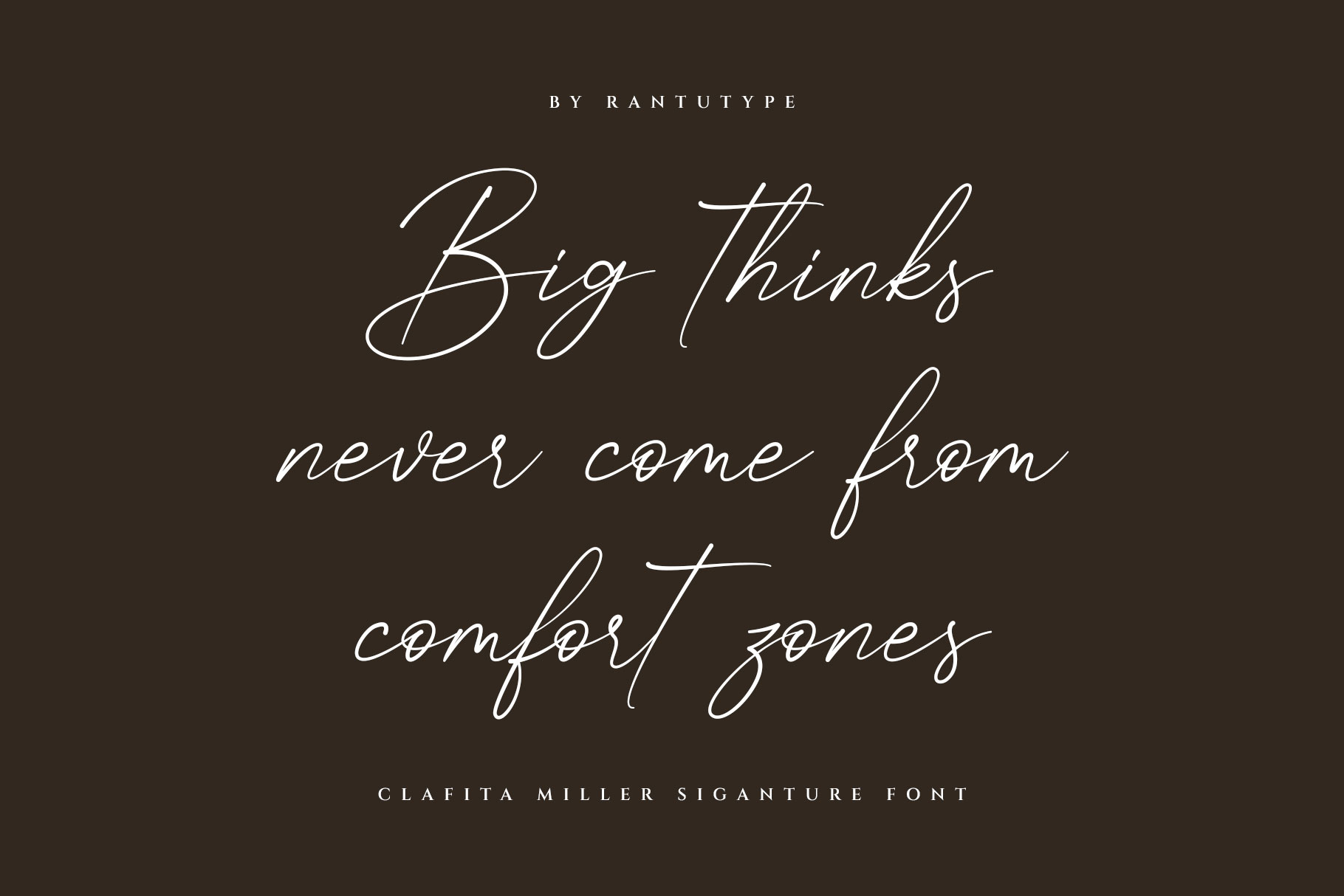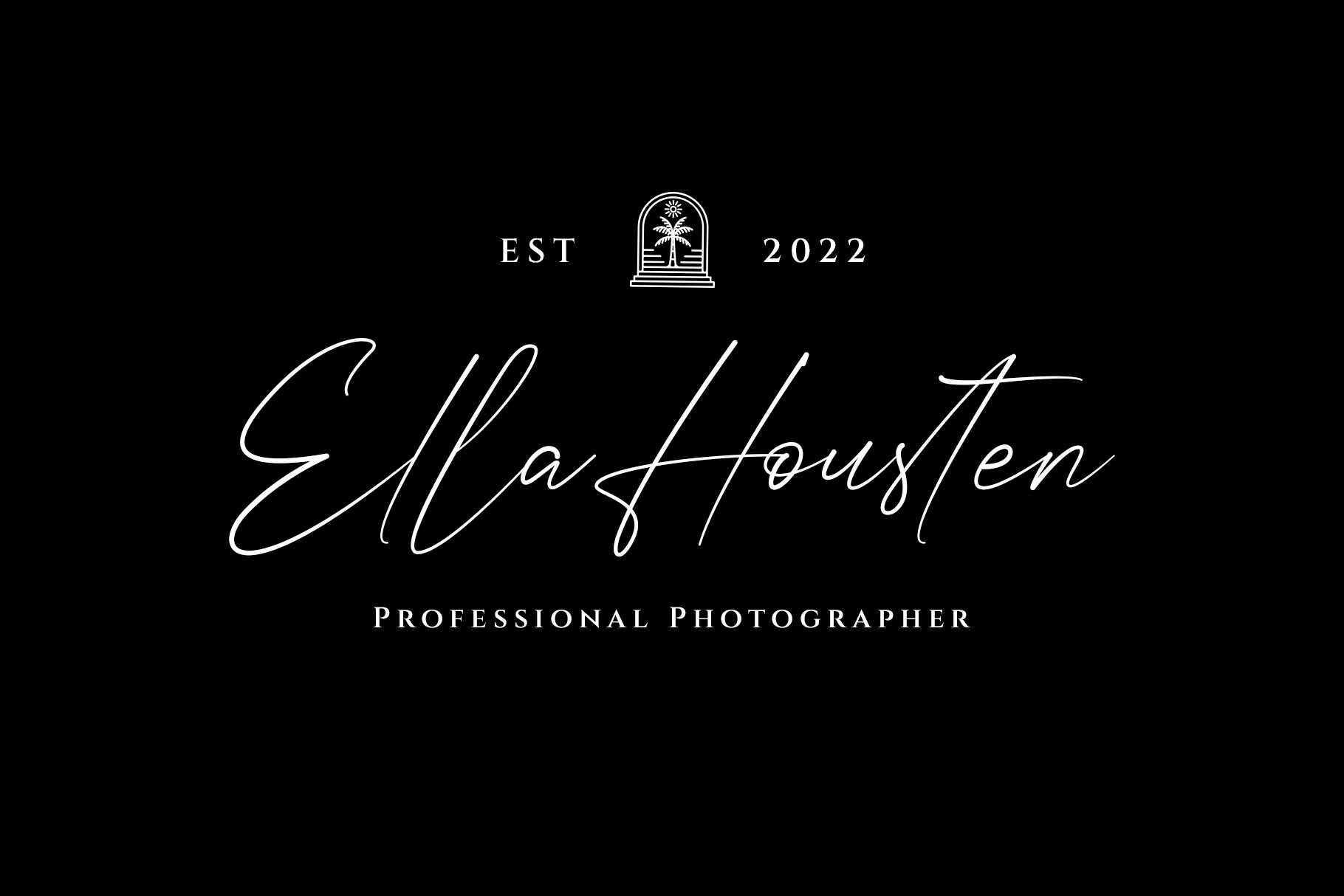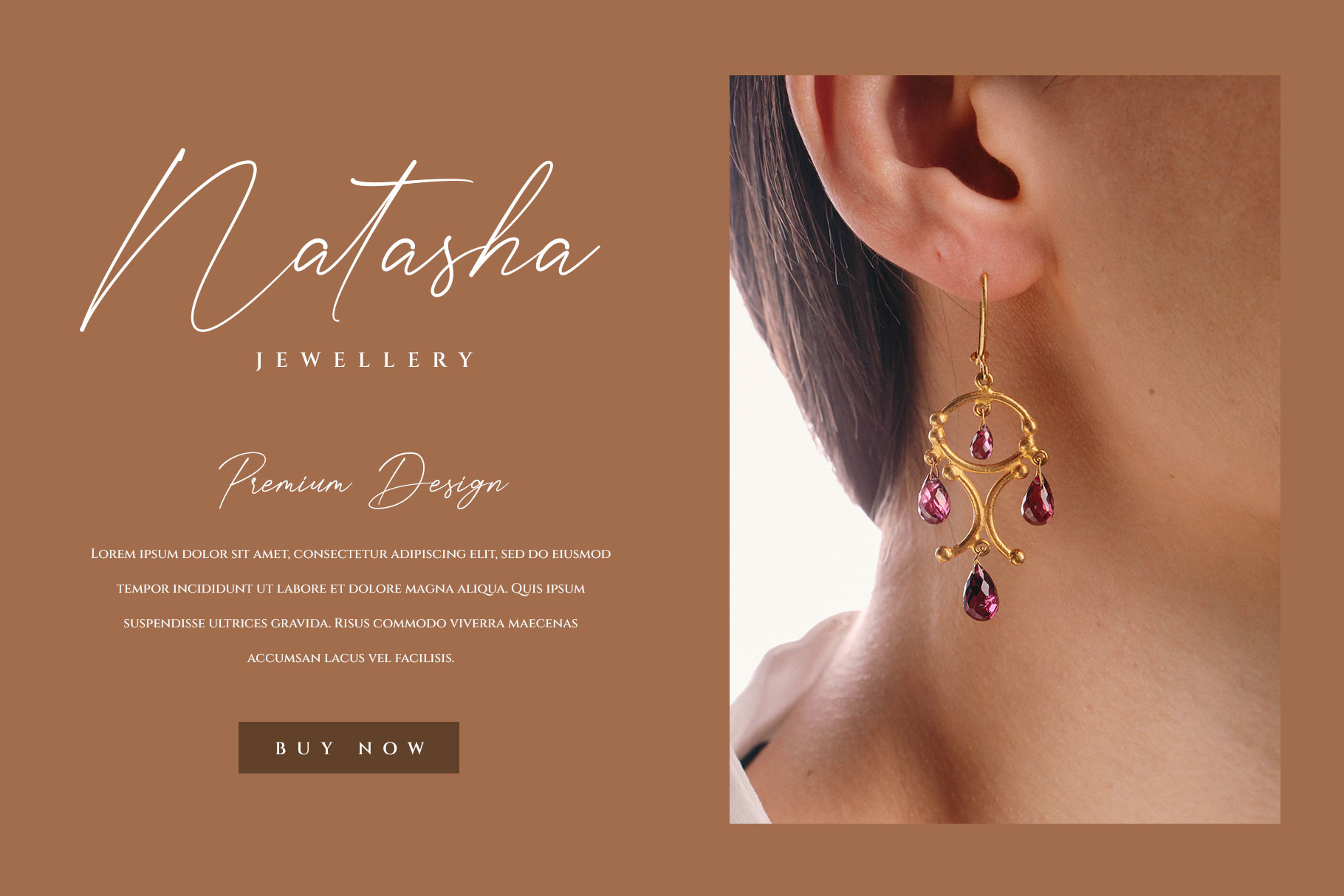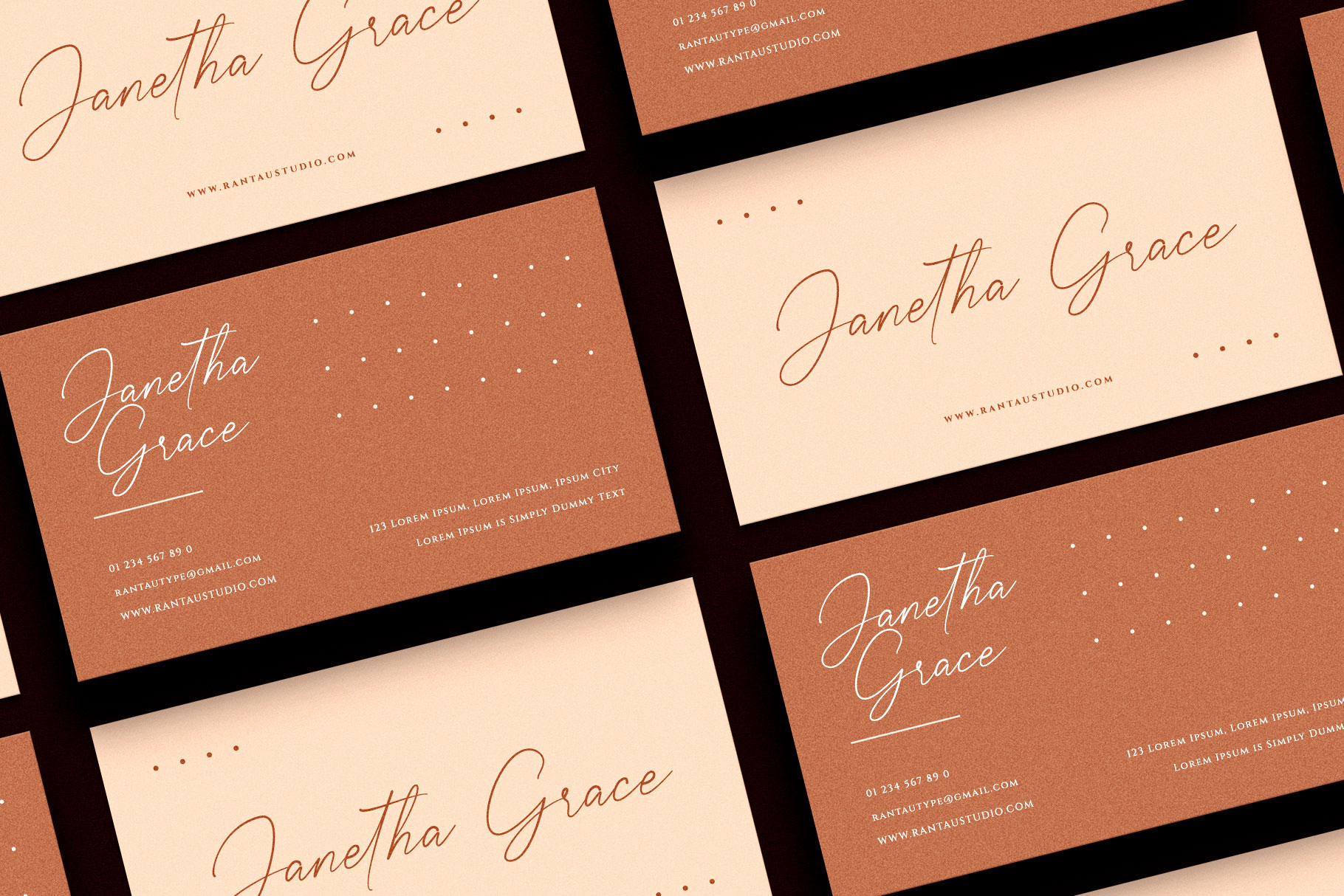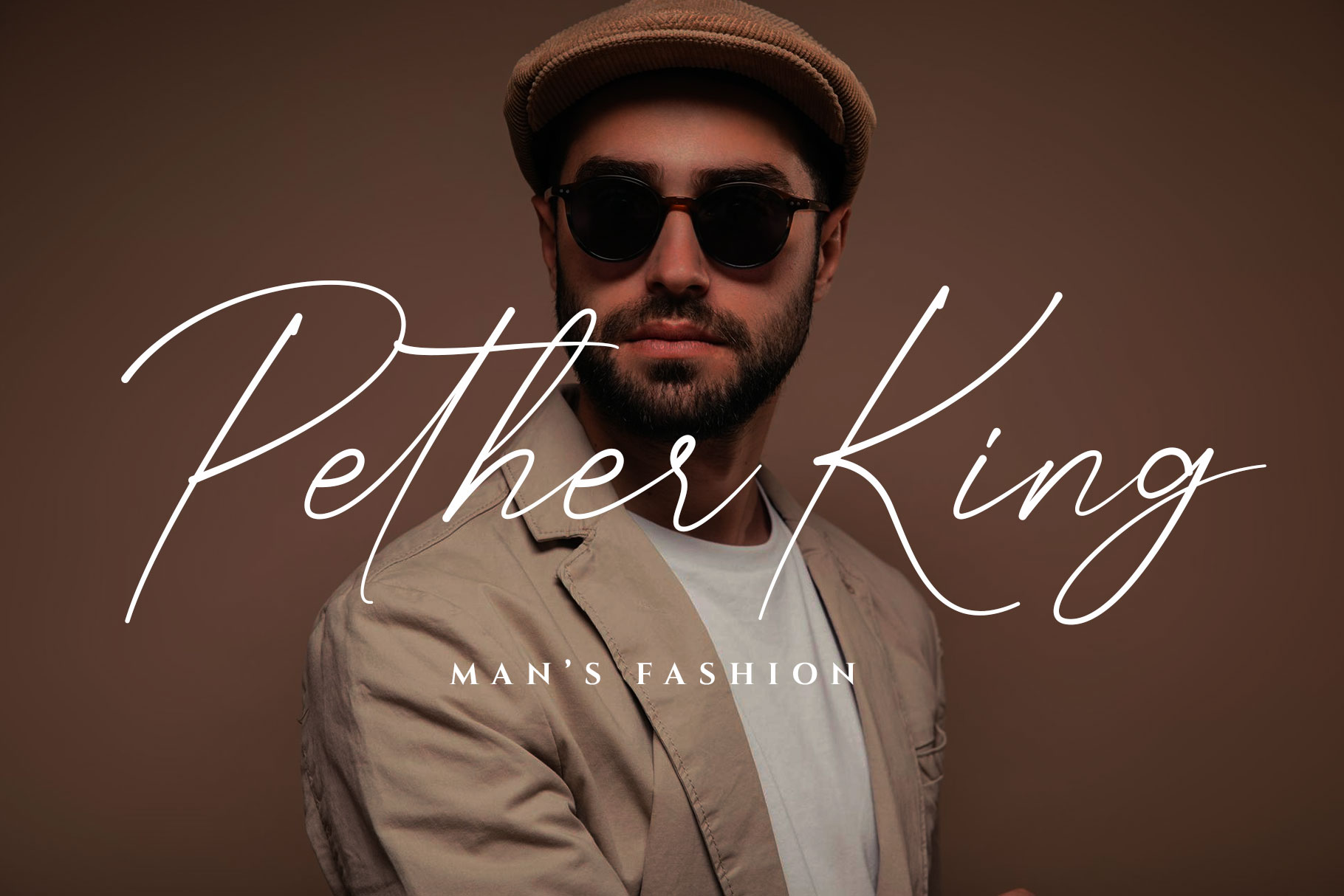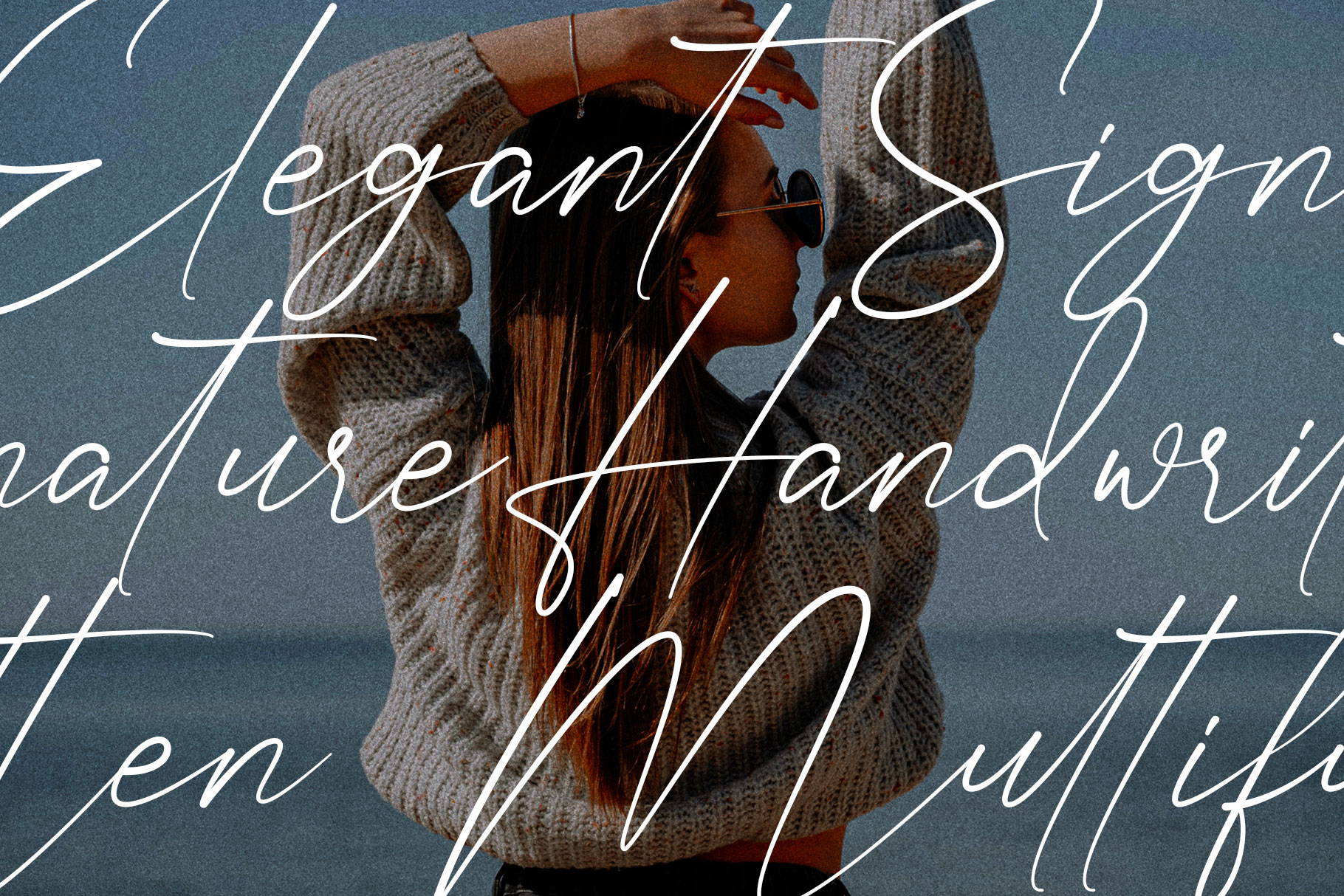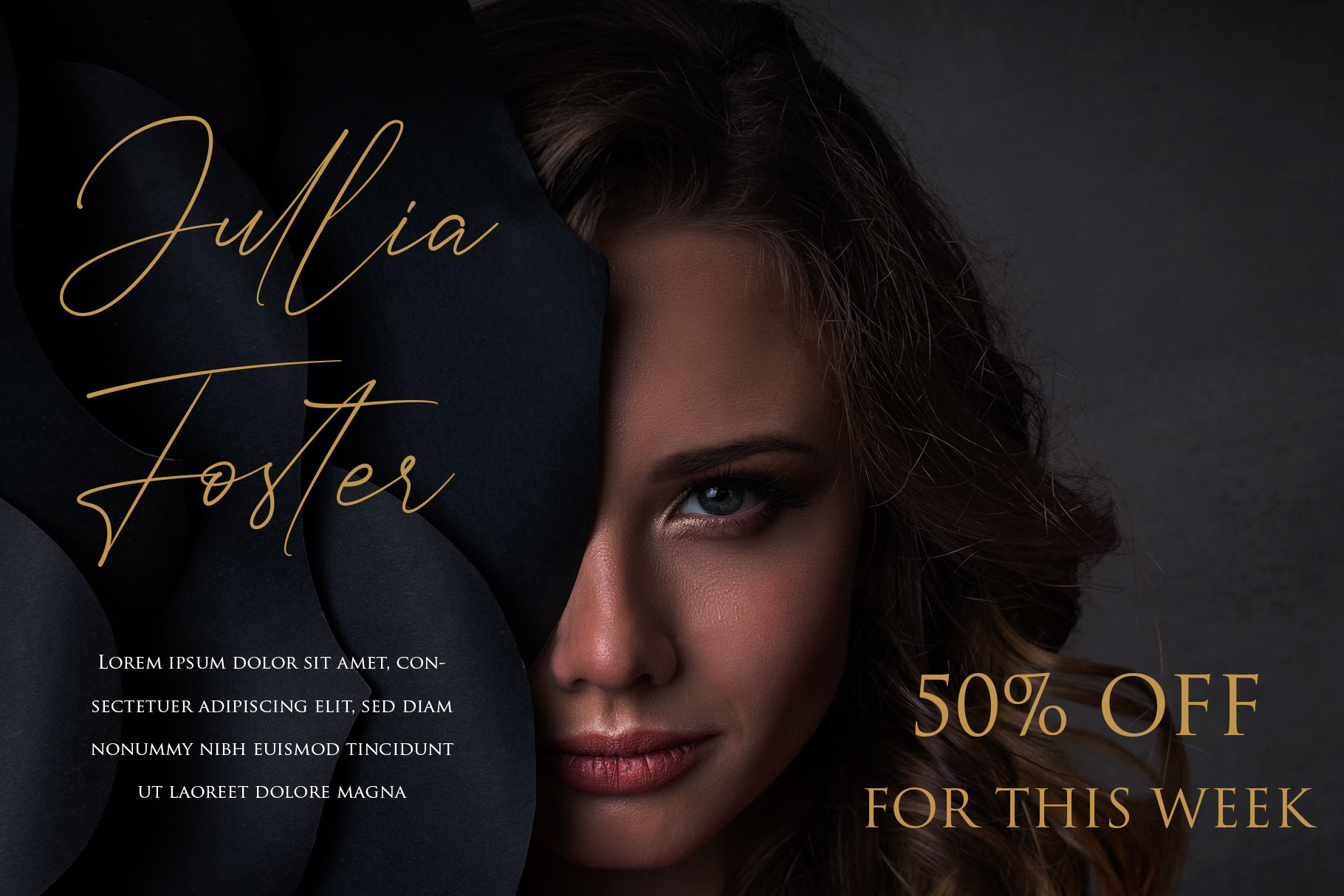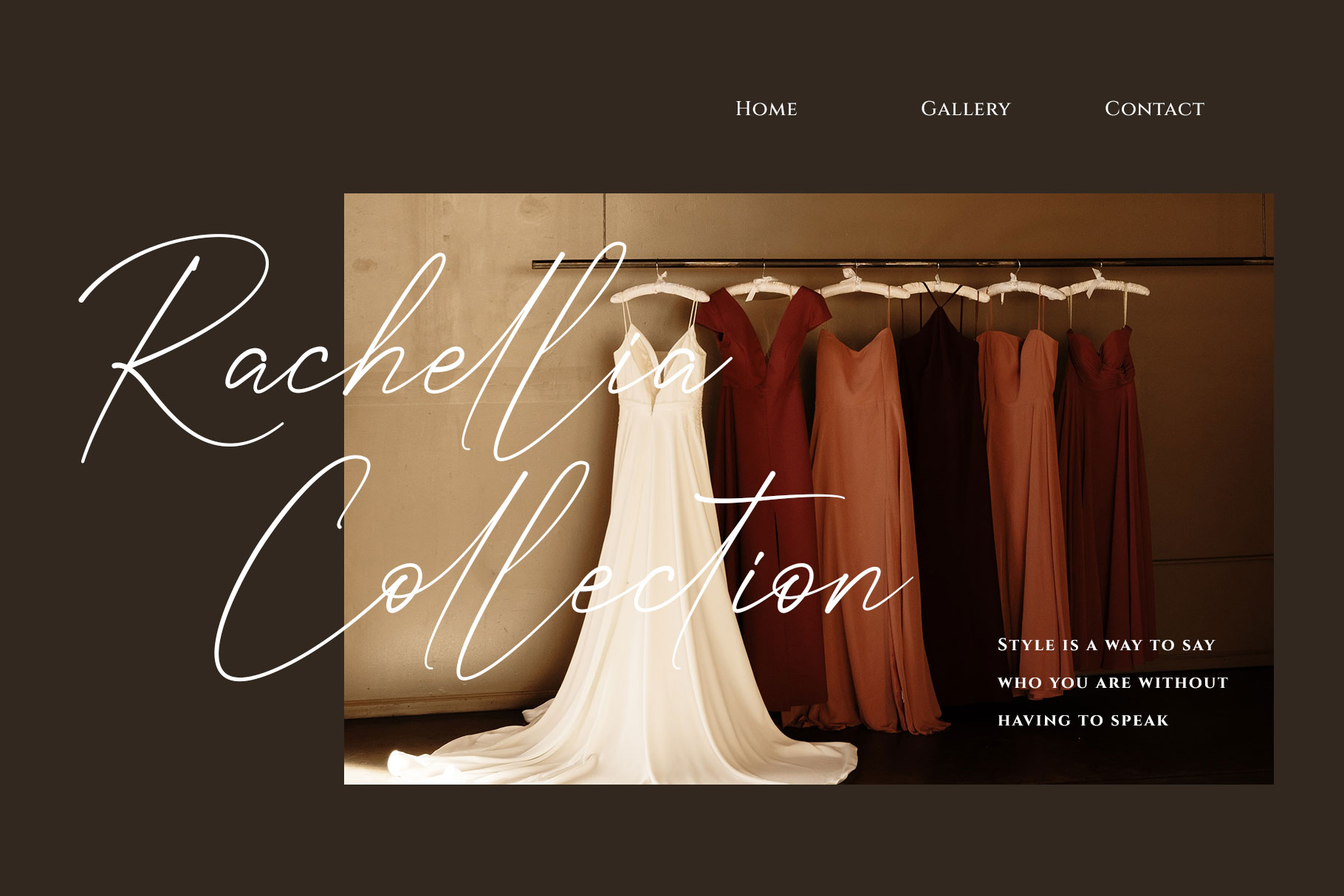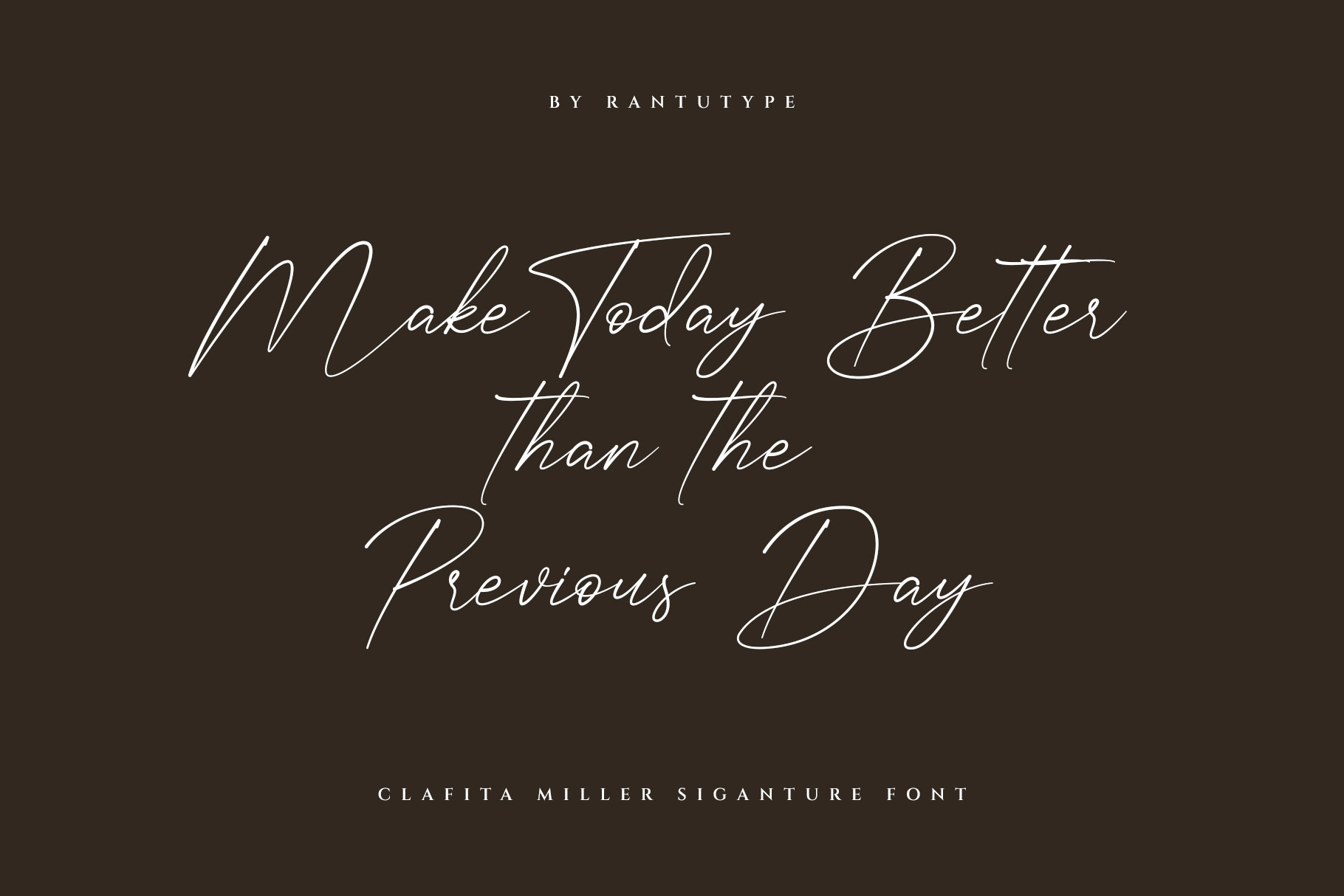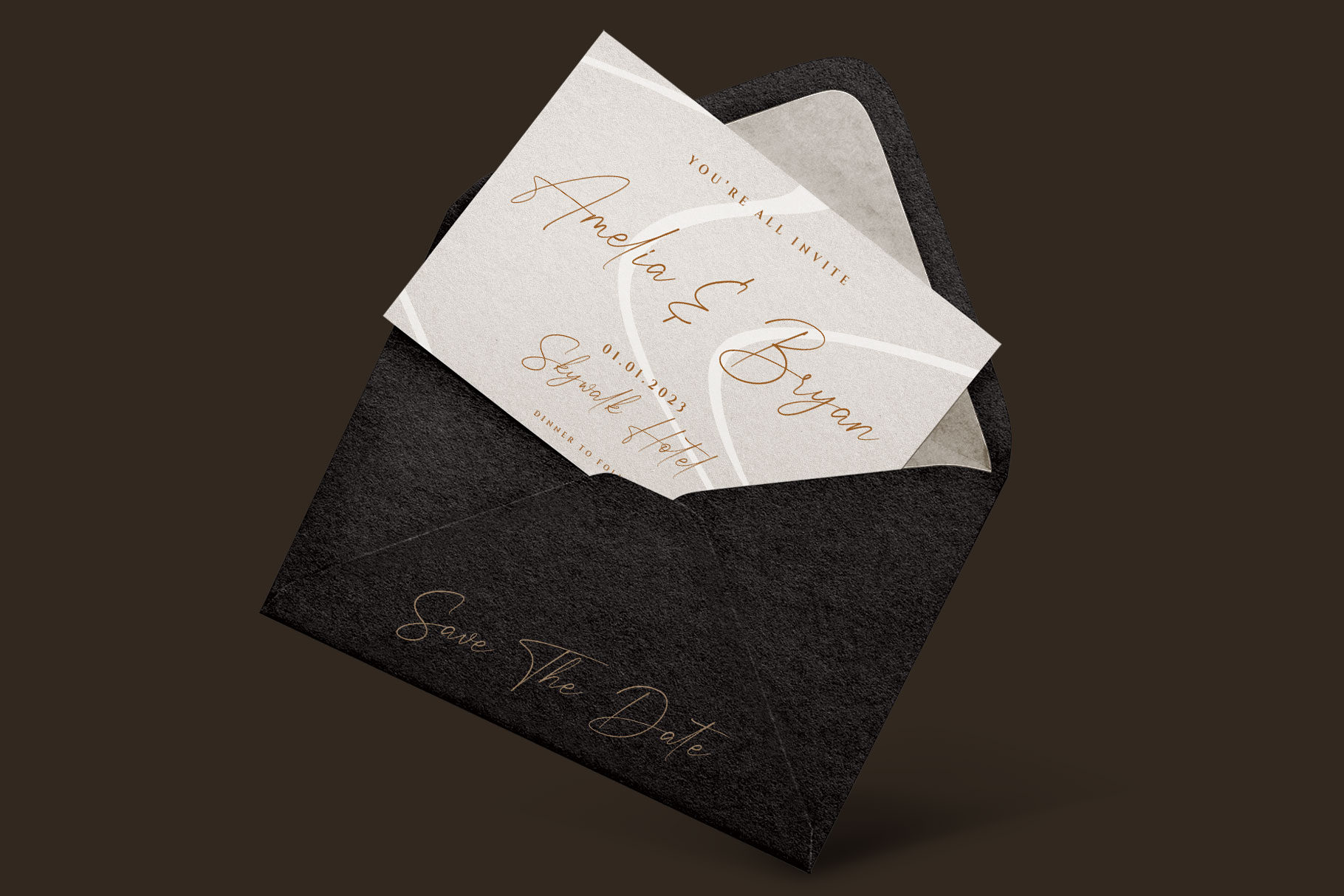
Clafita Miller Signature Font
Proudly present modern signature  font “Clafita Miller”.
This font is elegant style which can be interpreted professional. we keep this font looks elegant, luxury, premium, modern, readable, stylish, feminine, girly, catchy and easy to use. Clafita Miller is the great choice for watermark on photography, signature or signature logo design, quotes, album cover, magazine, business card and many other design project. Clafita Miller here to make your work to high level!!!
• ligature